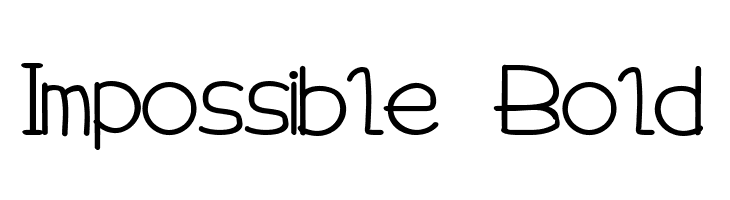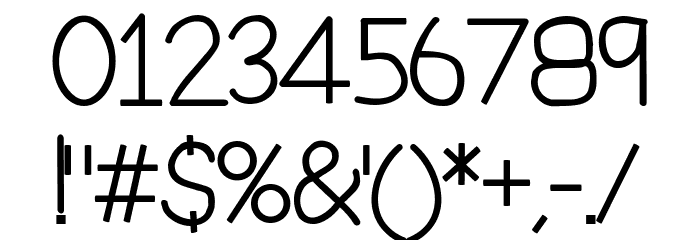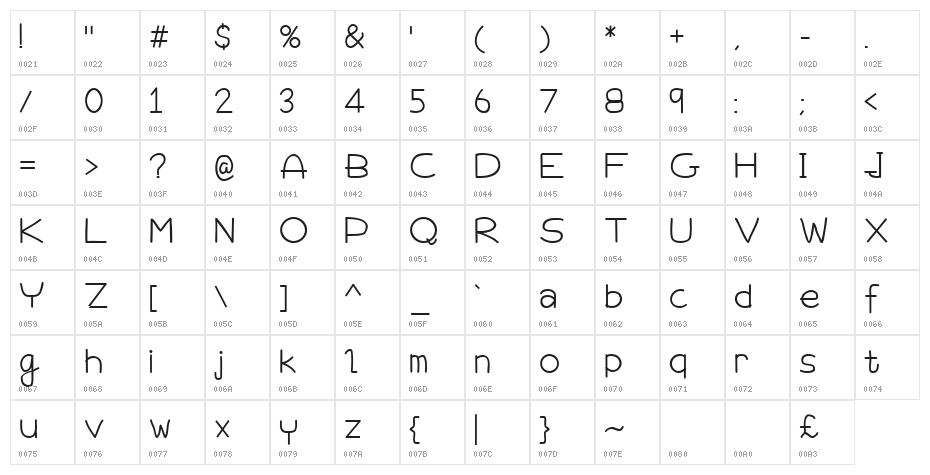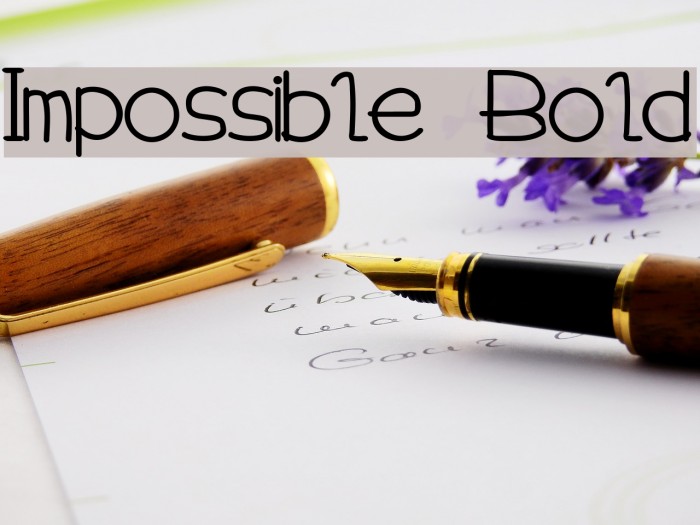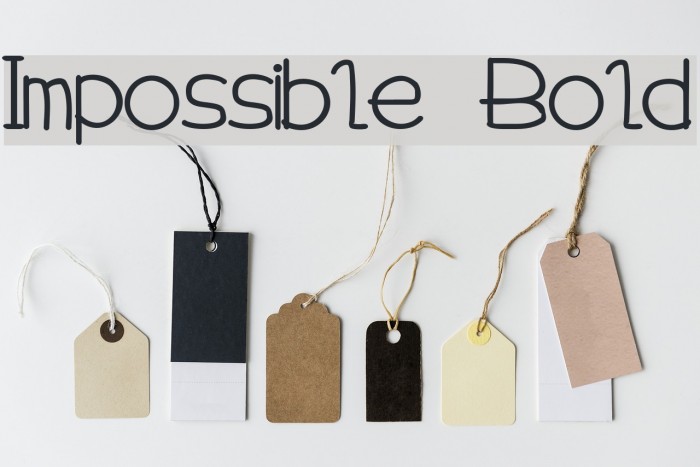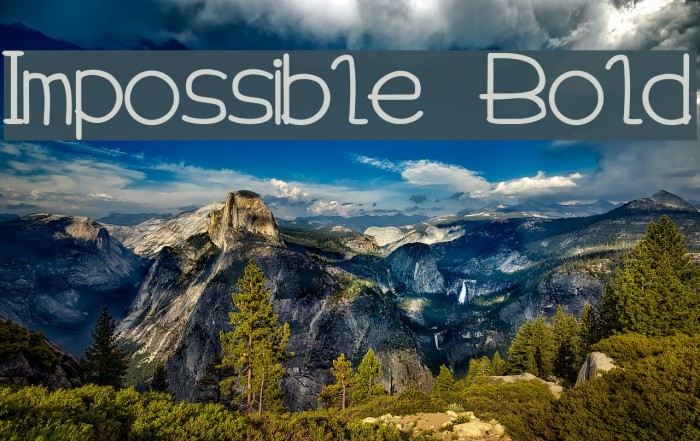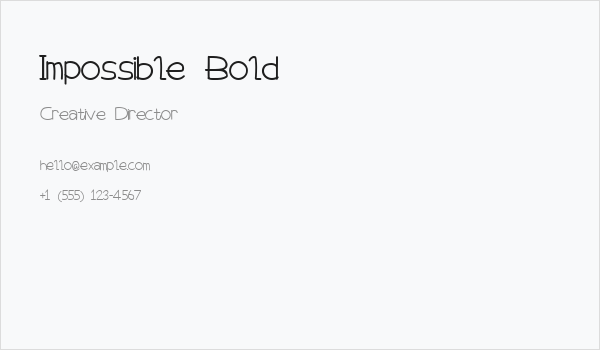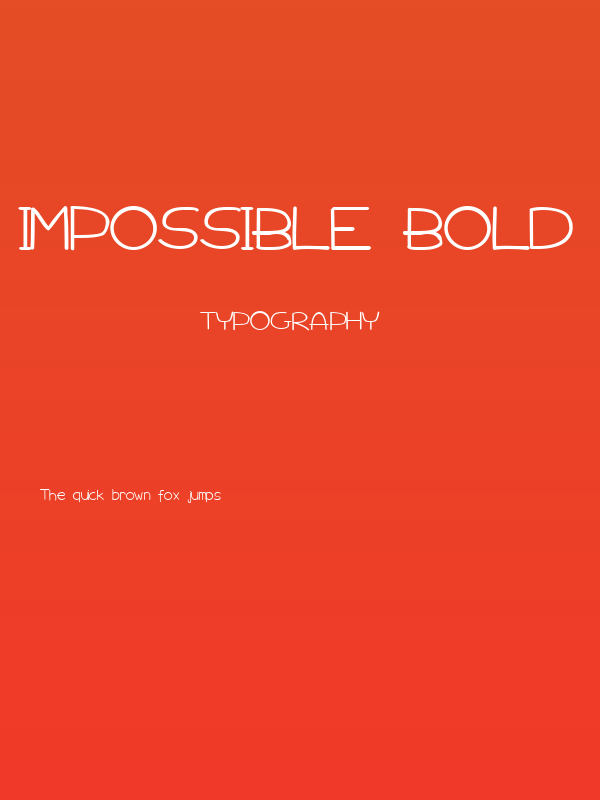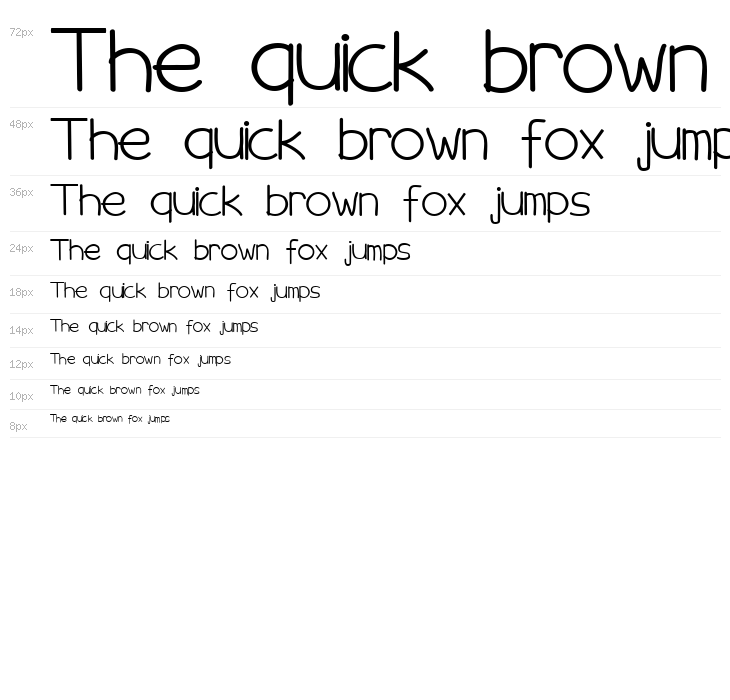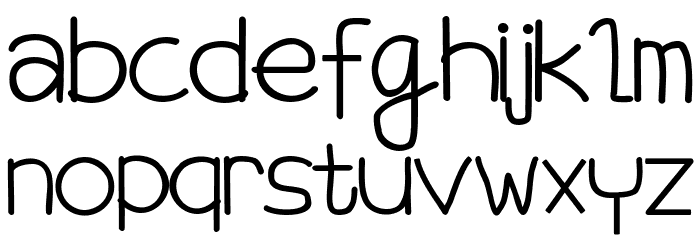
Impossible Bold Font
Impossible Bold Description
This font features a playful and modern design with a unique blend of geometric and organic shapes. The uppercase letters are characterized by their clean lines and rounded edges, giving them a friendly and approachable appearance. The lowercase letters maintain a consistent style, with some characters exhibiting slight curves that add a touch of whimsy. The numerals are bold and easy to read, making them suitable for various applications. Special characters are well-integrated, maintaining the overall aesthetic. The font's design is versatile, making it suitable for both digital and print media.
| Proposed Projects | Ideal for children's books, playful branding, creative posters, and digital media. |